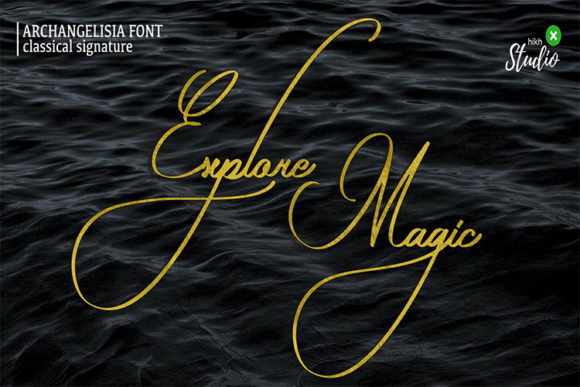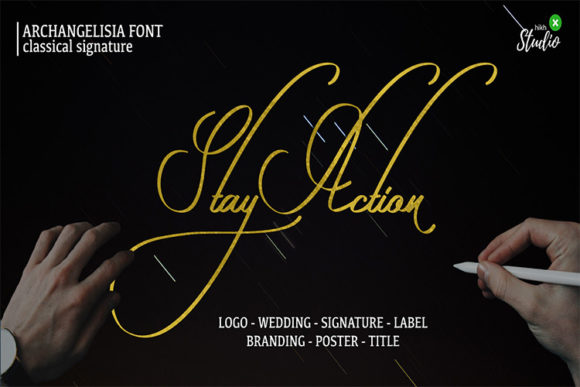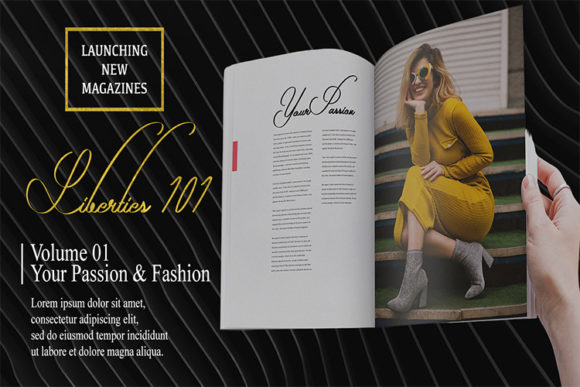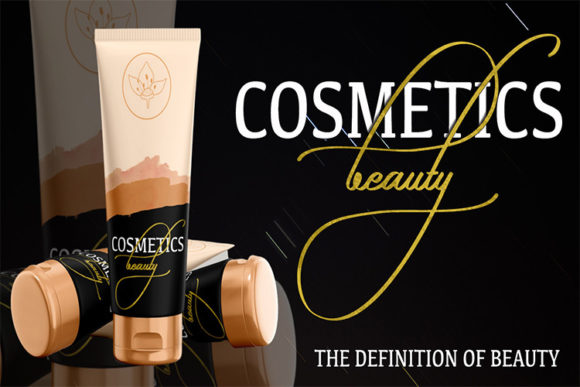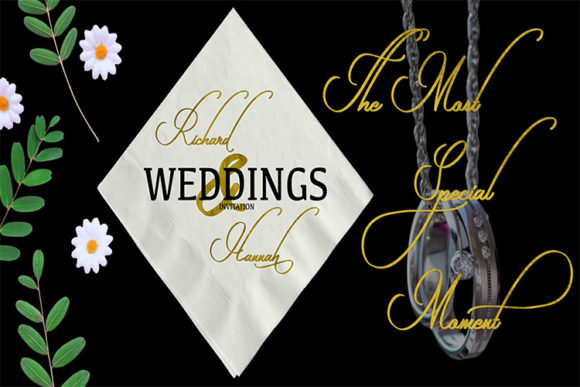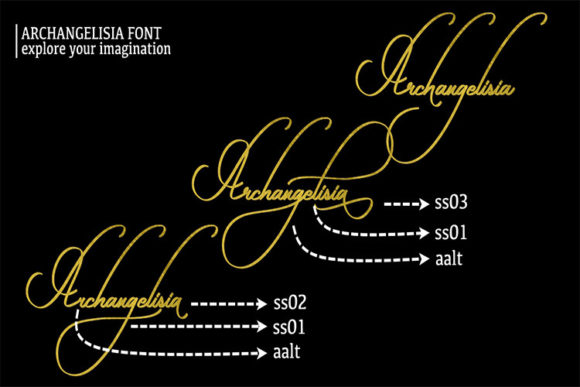
Introducing Archangelisia Font: Elevate Your Designs with Elegance and Sophistication
In the world of typography, a font can make or break a design. For designers and crafters seeking to add a touch of luxury and refinement to their work, Archangelisia Font is an exceptional choice. This stunning script font boasts a classy, elegant, and modern aesthetic, perfect for a wide range of applications, from logos and branding to invitations, stationery, wedding designs, and social media posts.
What Makes Archangelisia Font Stand Out?
Archangelisia Font is a beautifully crafted script font that exudes sophistication and poise. Its refined lines, flowing curves, and precise lettering make it an ideal choice for designers looking to create stunning visual content. Whether you’re working on a high-end brand campaign, a wedding invitation, or a social media post, Archangelisia Font is sure to impress.
Key Features of Archangelisia Font
- Elegant and Modern Design: Archangelisia Font features a sleek and contemporary design that will elevate your work and set it apart from the rest.
- Classy and Refined: With its precise lettering and flowing curves, Archangelisia Font is perfect for designs that require a touch of sophistication.
- Versatile: This font is suitable for a wide range of applications, including logos, branding, invitations, stationery, wedding designs, social media posts, and more.
- Easy to Read: Despite its elegant design, Archangelisia Font remains highly legible, making it perfect for both digital and print applications.
Use Cases for Archangelisia Font
Archangelisia Font is an incredibly versatile font that can be used in various design projects. Here are some examples of how you can utilize this beautiful font:
- Logos and Branding: Create a lasting impression with a custom logo or brand identity that showcases your business’s personality and values.
- Invitations and Stationery: Add a touch of elegance to your invitations, greeting cards, and stationery with Archangelisia Font.
- Wedding Designs: Make your wedding designs truly unforgettable with this stunning script font, perfect for wedding invitations, programs, and more.
- Social Media Posts: Elevate your social media presence with eye-catching posts and graphics featuring Archangelisia Font.
Tips for Using Archangelisia Font Effectively
To get the most out of Archangelisia Font, follow these expert tips:
- Pair with Complementary Fonts: Combine Archangelisia Font with complementary fonts to create visual interest and hierarchy in your designs.
- Experiment with Colors: Take advantage of Archangelisia Font’s versatility by experimenting with different colors and textures.
- Pay Attention to Spacing: Ensure that your design has sufficient spacing to allow Archangelisia Font to breathe and make an impact.
Archangelisia Font is a truly exceptional script font that offers designers and crafters a world of creative possibilities. With its elegant and modern design, versatility, and ease of use, this font is sure to become a staple in your design arsenal. Whether you’re working on a high-end brand campaign or a personal project, Archangelisia Font is the perfect choice for adding a touch of sophistication and refinement.